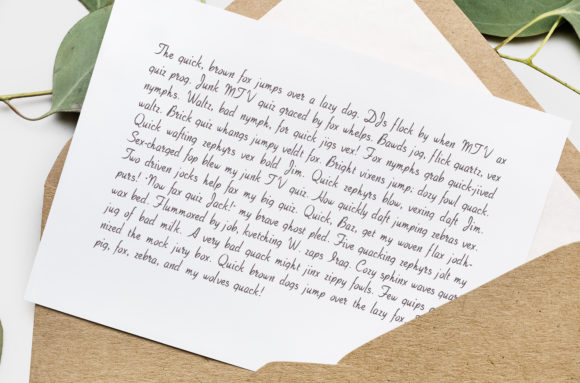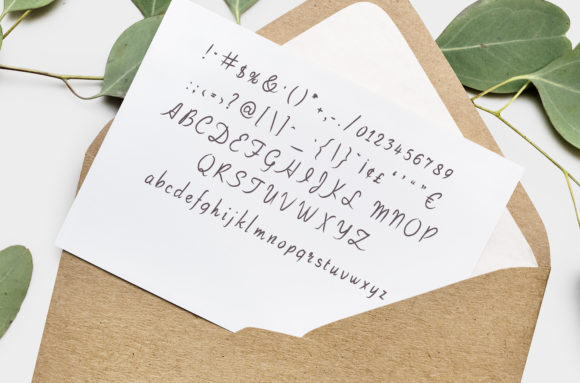
Cynamon Font: The Perfect Handwritten Touch for Your Designs
Are you looking for a font that adds a touch of elegance and whimsy to your designs? Look no further than Cynamon Font! This adorable handwritten font is perfect for a variety of projects, from wedding invitations to business cards, and is sure to make your designs stand out.
What is Cynamon Font?
Cynamon Font is a beautiful, handwritten font that is designed to add a personal touch to your designs. Its elegant and flowing lines make it perfect for a variety of projects, including wedding invitations, thank you cards, quotes, greeting cards, logos, and business cards.
Features of Cynamon Font
- Handwritten style: Cynamon Font has a beautiful, handwritten style that adds a personal touch to your designs.
- Elegant and flowing lines: The font’s elegant and flowing lines make it perfect for a variety of projects, from formal events to everyday designs.
- Versatile: Cynamon Font is versatile and can be used for a variety of projects, including wedding invitations, thank you cards, quotes, greeting cards, logos, and business cards.
- Easy to read: The font is easy to read, making it perfect for designs that require a lot of text.
Uses of Cynamon Font
Cynamon Font is perfect for a variety of projects, including:
- Wedding invitations: Add a touch of elegance and whimsy to your wedding invitations with Cynamon Font.
- Thank you cards: Show your appreciation with beautiful, handwritten-style thank you cards featuring Cynamon Font.
- Quotes: Add a touch of elegance to your quotes with Cynamon Font.
- Greeting cards: Create beautiful greeting cards for any occasion with Cynamon Font.
- Logos: Use Cynamon Font to create a unique and memorable logo for your business.
- Business cards: Add a touch of elegance to your business cards with Cynamon Font.
Why Choose Cynamon Font?
There are many reasons to choose Cynamon Font for your designs. Here are a few:
- Unique and elegant: Cynamon Font is a unique and elegant font that will make your designs stand out.
- High-quality: The font is high-quality and will look great in any design.
Tips for Using Cynamon Font
Here are a few tips for using Cynamon Font in your designs:
- Use it sparingly: Cynamon Font is a beautiful font, but it can be overwhelming if used too much. Use it sparingly to add a touch of elegance to your designs.
- Pair it with other fonts: Cynamon Font pairs well with other fonts, such as sans serif fonts. Experiment with different font combinations to find the perfect look for your design.
- Adjust the size: Adjust the size of Cynamon Font to fit your design. A larger size can be used for headings, while a smaller size can be used for body text.